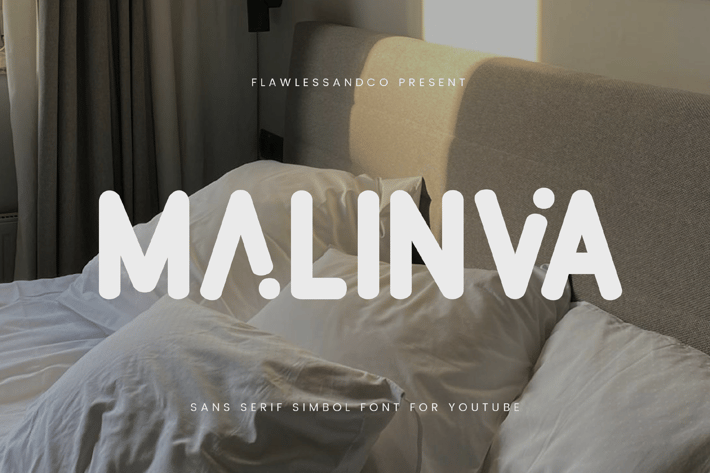
Malinva - Thumbnails Font
Introducing Malinva, a bold and captivating sans-serif font designed to make your YouTube thumbnails stand out from the crowd. With its clean lines and geometric structure, Malinva exudes a sense of modernism and professionalism, perfectly complementing a wide range of YouTube content.
Uppercase alphabet A-Z
Lowercase alphabet a-z
Numbers 0-9
Some punctuation